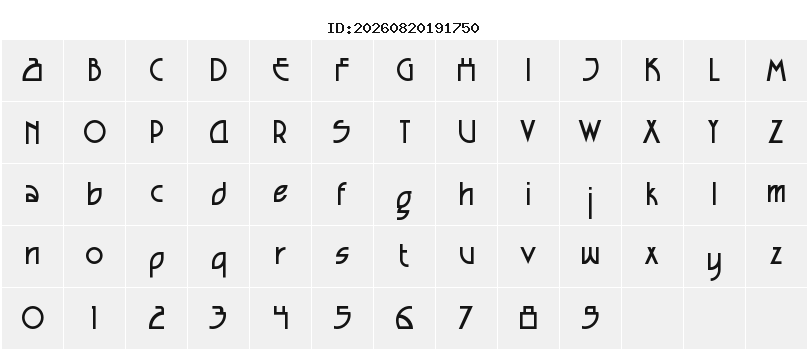
Seized Future Preview
• Font Name: Seized Future
• Full Font Name: Seized Future
• Version: 2.0; January 14, 2002
About Seized Future.ttf
Seized Future.ttf is a modern, elegant sans-serif font designed for ultimate readability and visual harmony. Perfect for branding, headlines, web design, and print materials.